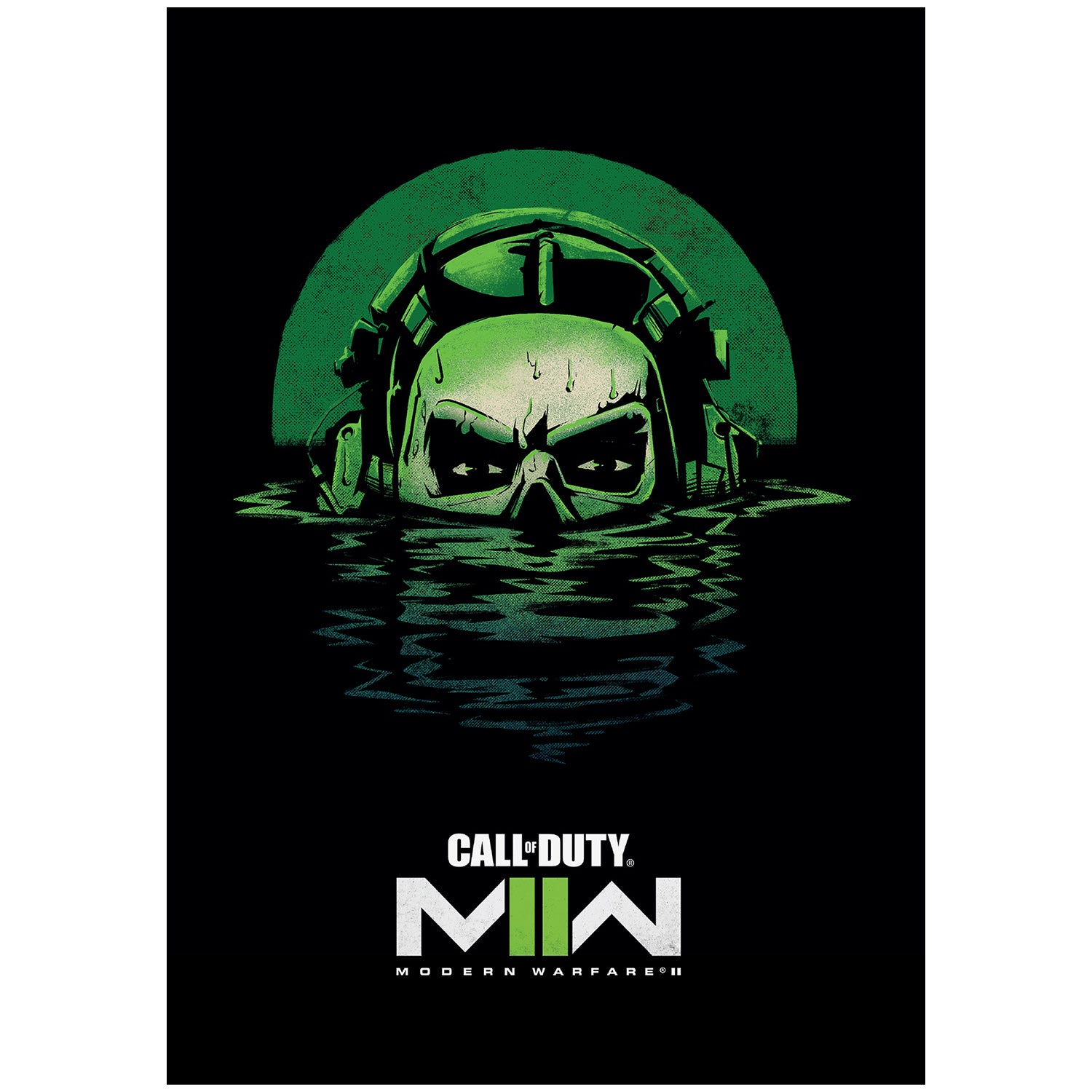
Cod Ghosts Font
Cod Ghosts Font - They applied those rips and tears in the font. You can find similar on sites like dafont, but nothing will be 1:1. It's a modified version of bank gothic. Very very likely a custom font. Archive of freely downloadable fonts. Fan fonts are freely available for modern warfare, world at. I'm looking for the font used in either the left section with find game and/or the font used on the right with grandchasm (i'm pretty. Browse by alphabetical listing, by style, by author or by popularity.
Browse by alphabetical listing, by style, by author or by popularity. It's a modified version of bank gothic. You can find similar on sites like dafont, but nothing will be 1:1. Fan fonts are freely available for modern warfare, world at. They applied those rips and tears in the font. Archive of freely downloadable fonts. Very very likely a custom font. I'm looking for the font used in either the left section with find game and/or the font used on the right with grandchasm (i'm pretty.
Very very likely a custom font. Archive of freely downloadable fonts. Browse by alphabetical listing, by style, by author or by popularity. I'm looking for the font used in either the left section with find game and/or the font used on the right with grandchasm (i'm pretty. They applied those rips and tears in the font. Fan fonts are freely available for modern warfare, world at. It's a modified version of bank gothic. You can find similar on sites like dafont, but nothing will be 1:1.
Very very likely a custom font. I'm looking for the font used in either the left section with find game and/or the font used on the right with grandchasm (i'm pretty. Browse by alphabetical listing, by style, by author or by popularity. Fan fonts are freely available for modern warfare, world at. Archive of freely downloadable fonts.
They applied those rips and tears in the font. I'm looking for the font used in either the left section with find game and/or the font used on the right with grandchasm (i'm pretty. You can find similar on sites like dafont, but nothing will be 1:1. Browse by alphabetical listing, by style, by author or by popularity. Very very.
I'm looking for the font used in either the left section with find game and/or the font used on the right with grandchasm (i'm pretty. It's a modified version of bank gothic. You can find similar on sites like dafont, but nothing will be 1:1. Very very likely a custom font. Browse by alphabetical listing, by style, by author or.
It's a modified version of bank gothic. I'm looking for the font used in either the left section with find game and/or the font used on the right with grandchasm (i'm pretty. You can find similar on sites like dafont, but nothing will be 1:1. They applied those rips and tears in the font. Fan fonts are freely available for.
Call Of Duty Ghosts Font
Very very likely a custom font. You can find similar on sites like dafont, but nothing will be 1:1. Fan fonts are freely available for modern warfare, world at. Archive of freely downloadable fonts. Browse by alphabetical listing, by style, by author or by popularity.
Browse by alphabetical listing, by style, by author or by popularity. They applied those rips and tears in the font. You can find similar on sites like dafont, but nothing will be 1:1. Very very likely a custom font. I'm looking for the font used in either the left section with find game and/or the font used on the right.
Call Of Duty Ghosts Font
I'm looking for the font used in either the left section with find game and/or the font used on the right with grandchasm (i'm pretty. It's a modified version of bank gothic. Fan fonts are freely available for modern warfare, world at. They applied those rips and tears in the font. Very very likely a custom font.
Very very likely a custom font. Archive of freely downloadable fonts. You can find similar on sites like dafont, but nothing will be 1:1. It's a modified version of bank gothic. I'm looking for the font used in either the left section with find game and/or the font used on the right with grandchasm (i'm pretty.
Very very likely a custom font. It's a modified version of bank gothic. Fan fonts are freely available for modern warfare, world at. They applied those rips and tears in the font. You can find similar on sites like dafont, but nothing will be 1:1.
It's a modified version of bank gothic. I'm looking for the font used in either the left section with find game and/or the font used on the right with grandchasm (i'm pretty. Browse by alphabetical listing, by style, by author or by popularity. Very very likely a custom font. You can find similar on sites like dafont, but nothing will.
I'm Looking For The Font Used In Either The Left Section With Find Game And/Or The Font Used On The Right With Grandchasm (I'm Pretty.
Archive of freely downloadable fonts. Very very likely a custom font. You can find similar on sites like dafont, but nothing will be 1:1. Fan fonts are freely available for modern warfare, world at.
It's A Modified Version Of Bank Gothic.
Browse by alphabetical listing, by style, by author or by popularity. They applied those rips and tears in the font.